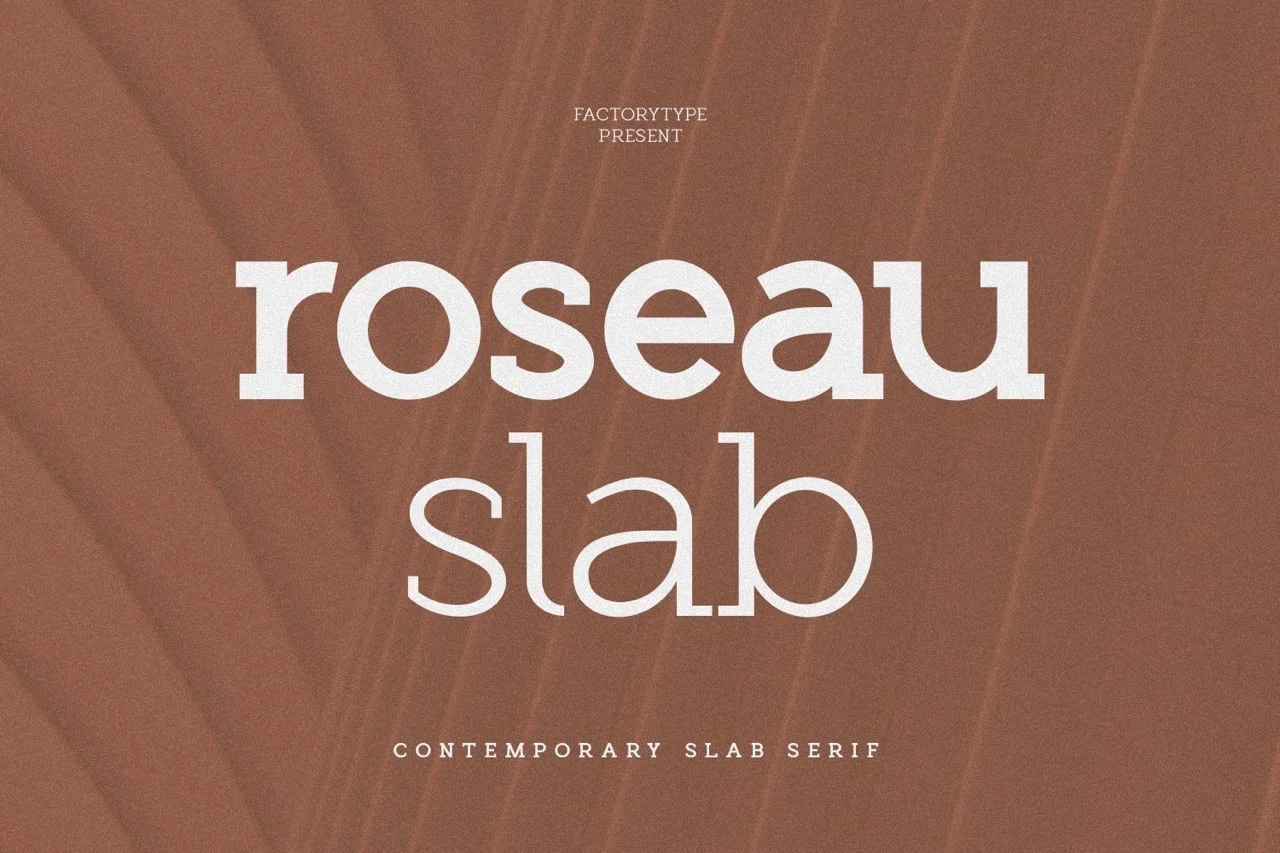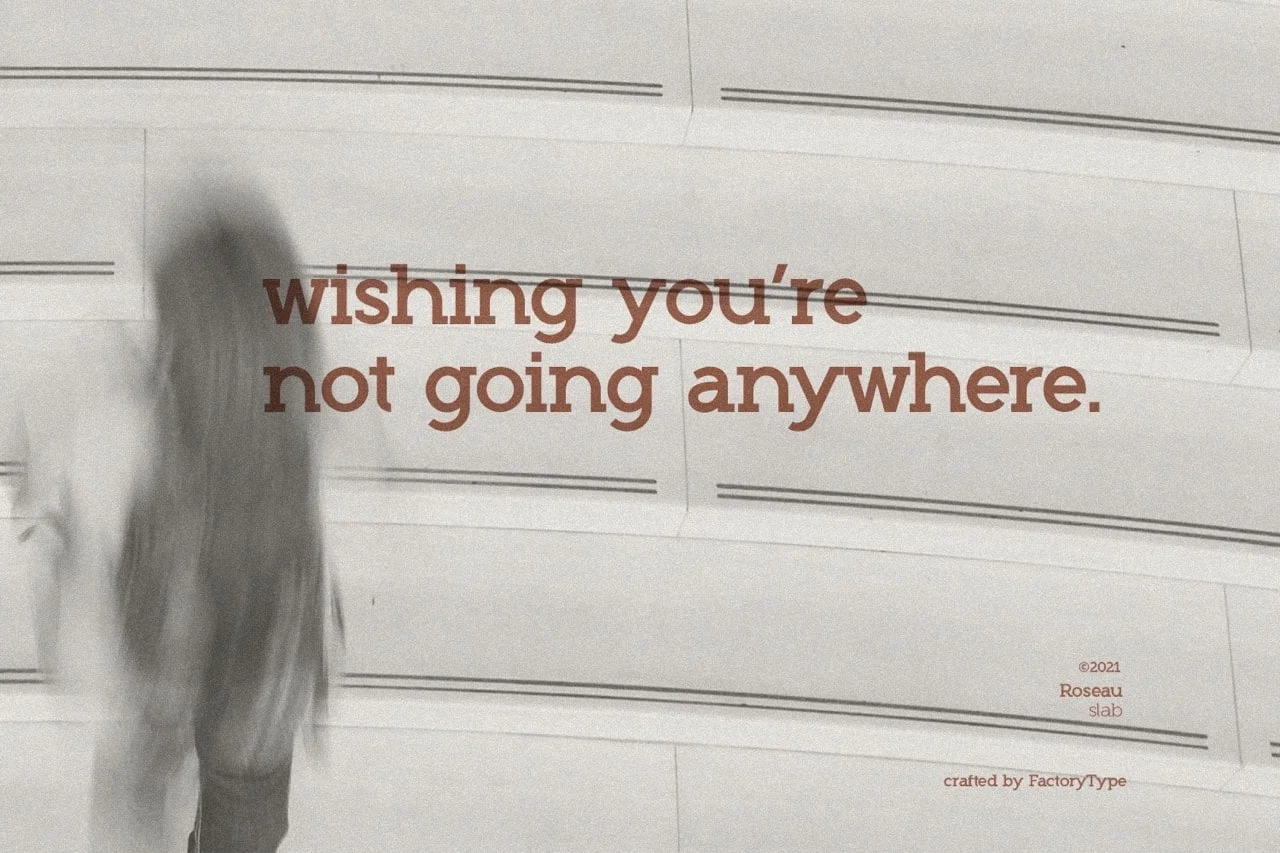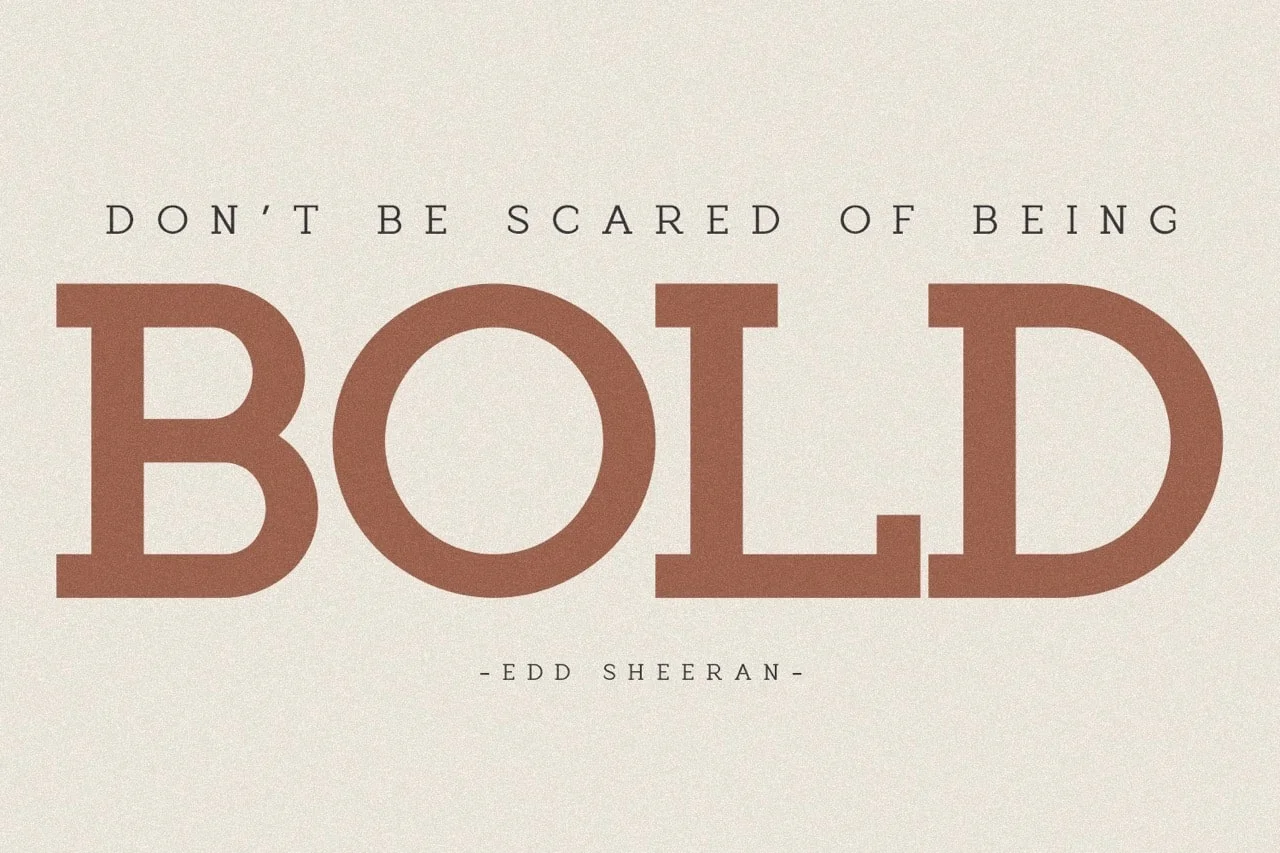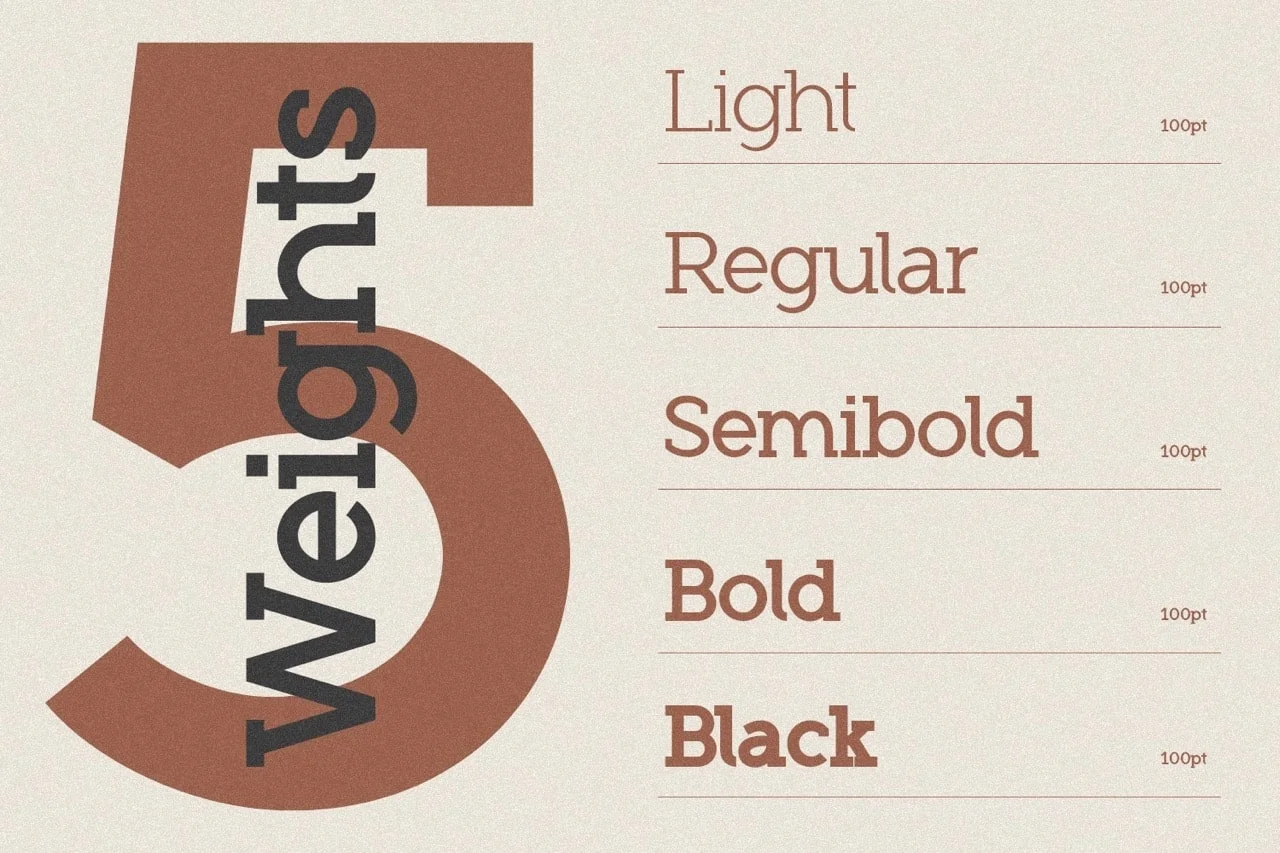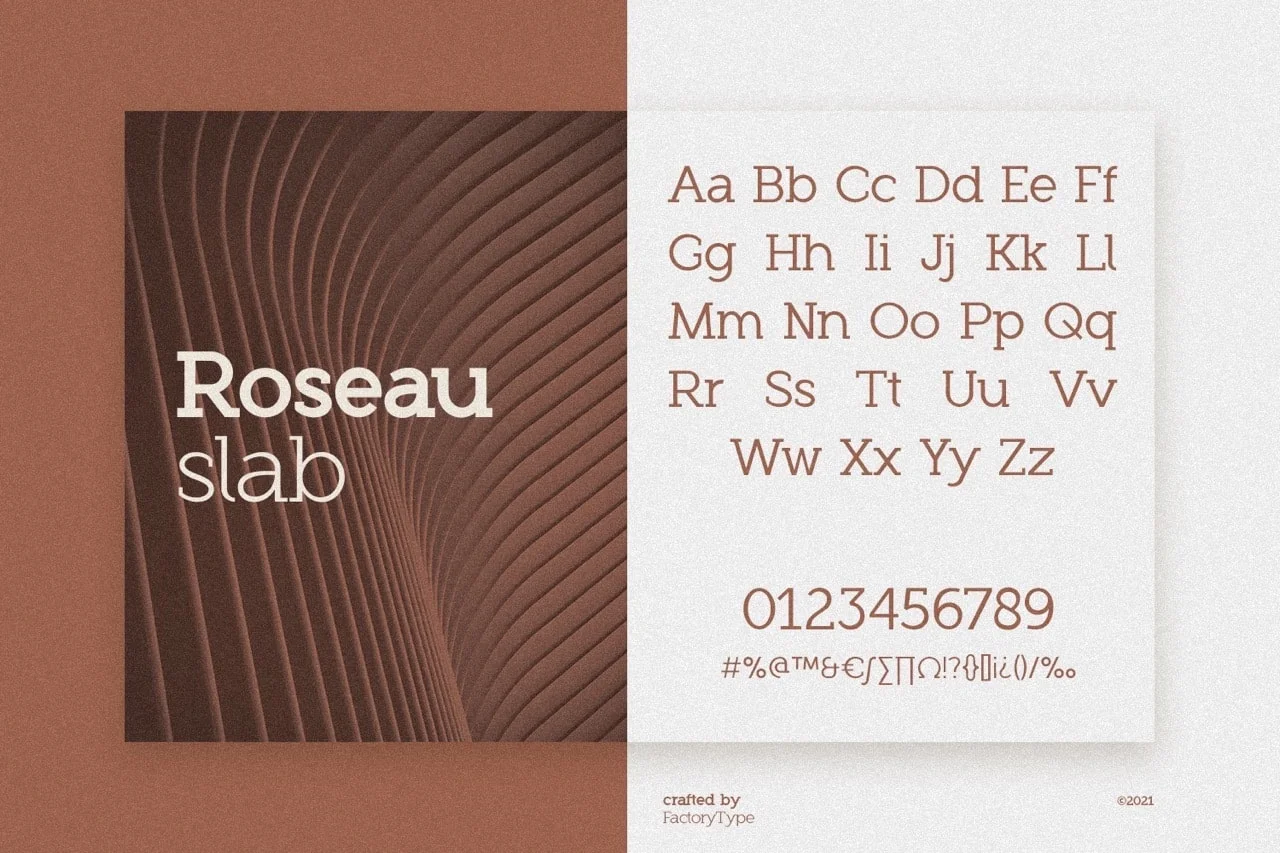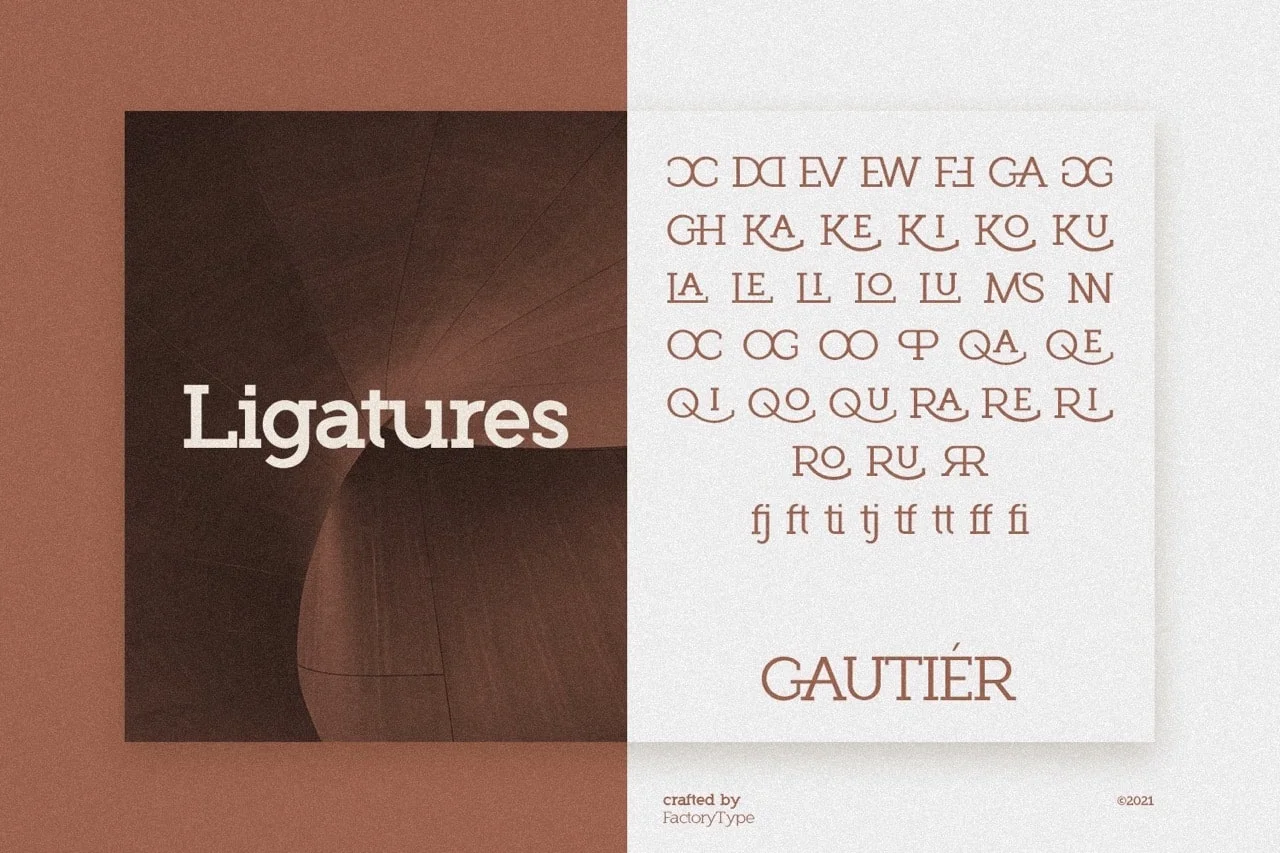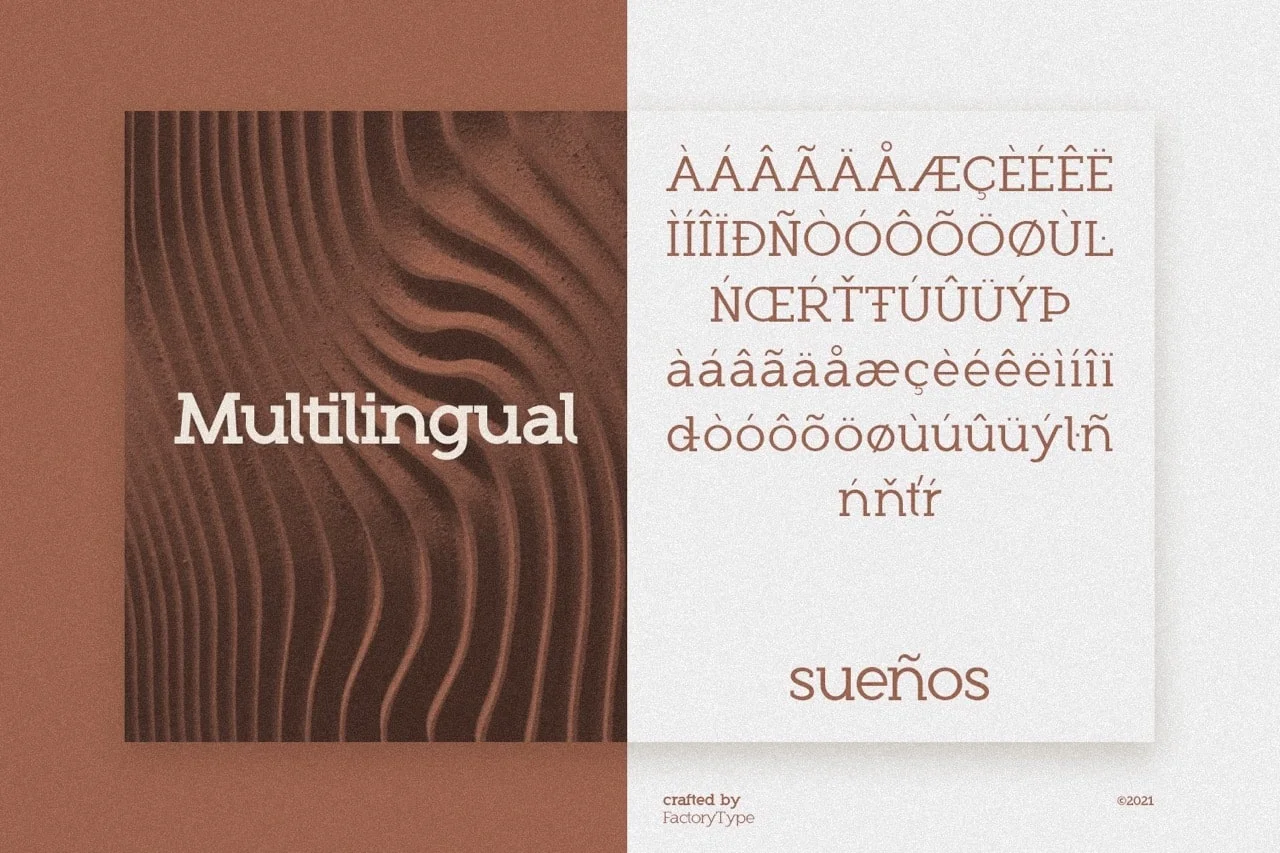
A bold, modern slab serif typeface created for making your design unique. This beautiful and highly readable monster offers a wide range of styles and weights for any project. Designed for readers of all ages in mind, Roseau Slab is perfect for branding visuals, magazine covers, posters, logos, presentations and more.
• 5 Weights
• Basic Latin A-Z and a-z
• Numerals & Punctuation
• Stylistic Ligatures and Alternate Glyphs
• Multilingual Support for ä ö ü Ä Ö Ü …
Roseau Slab